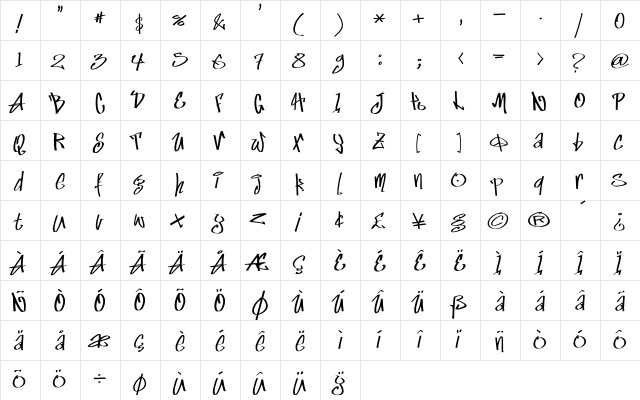
Marker Skinny
Design Context for Marker Typeface
Marker is a composed and adaptable typeface that performs quietly and consistently across a wide range of design contexts.